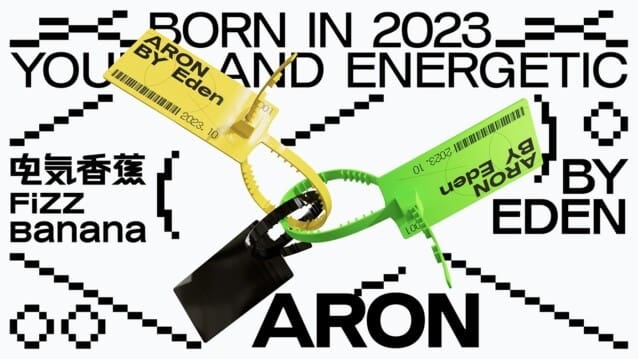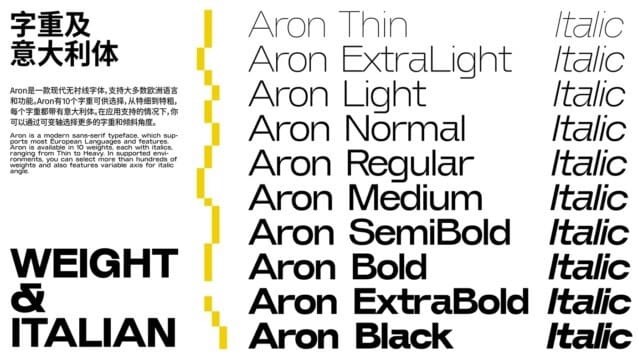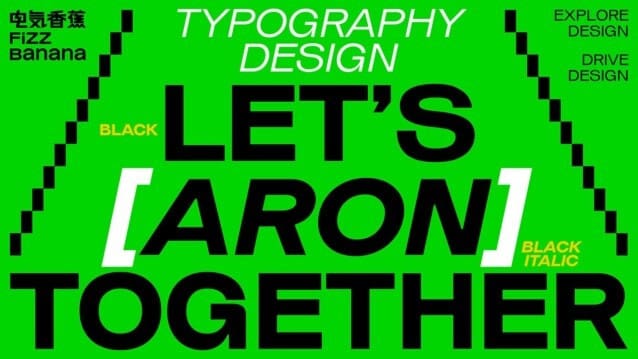
Aron Font Free
Aron Font is a free modern sans-serif font family, which supports most European Languages and features. AronFont is avail-able in 10 weights, each with italics, ranging from Thin to Heavy. In supported environments, you can select more than hundreds of weights and also features variable axis for italic angle.